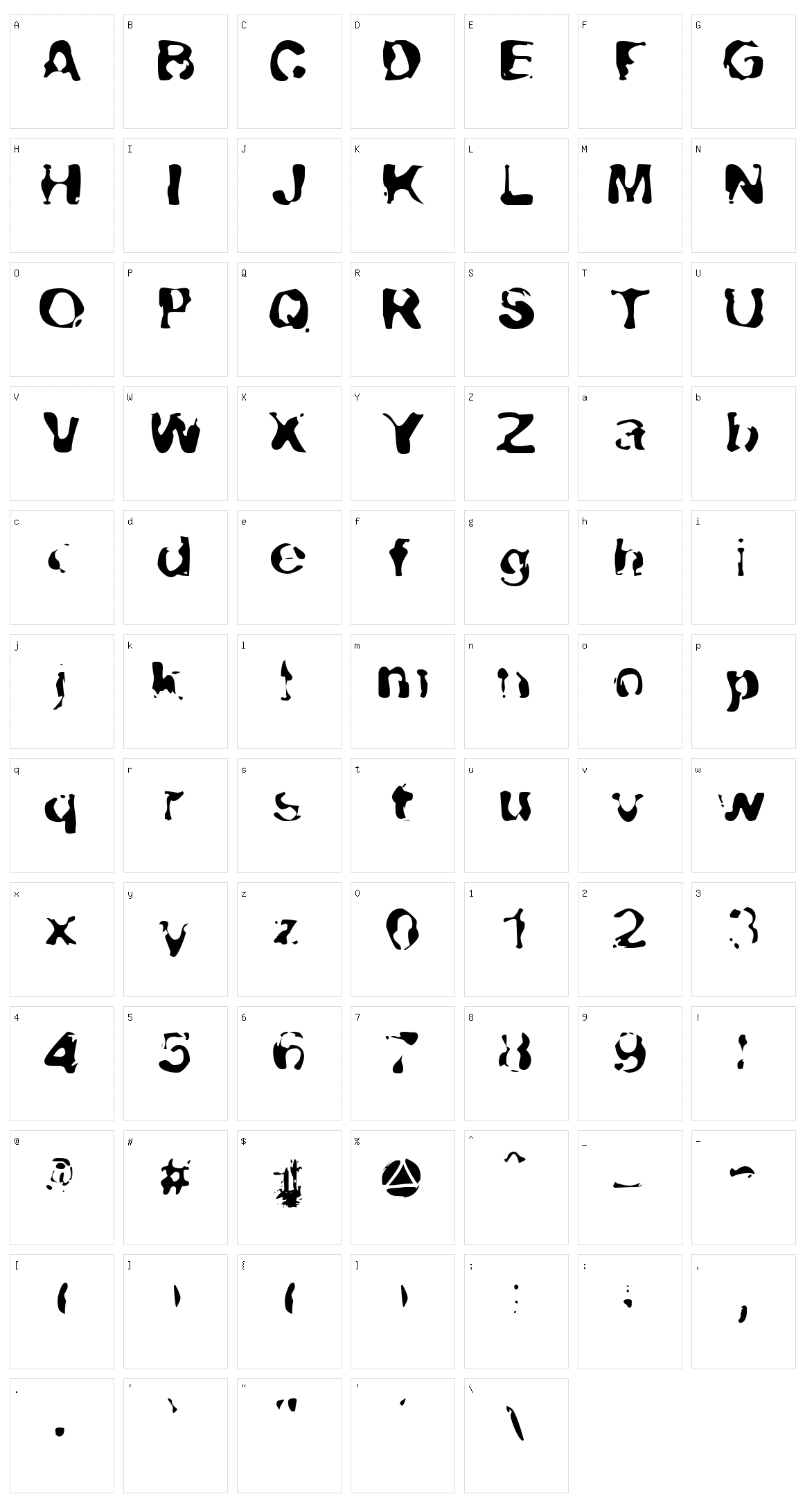
The free font Lava-Lava is carefully designed by Cheops, showcasing a thoughtful balance of creativity and usability and falls under the Eroded font style. When you download the ZIP file, it contains only 18.91 KB of font files, making it lightweight and quick to download. Please review the license details below to understand permitted usage and distribution rights. If license information is not available, we recommend using this font for personal projects only or contacting the author directly for commercial usage permissions.